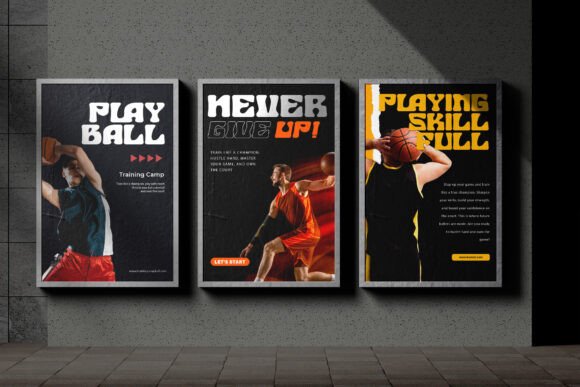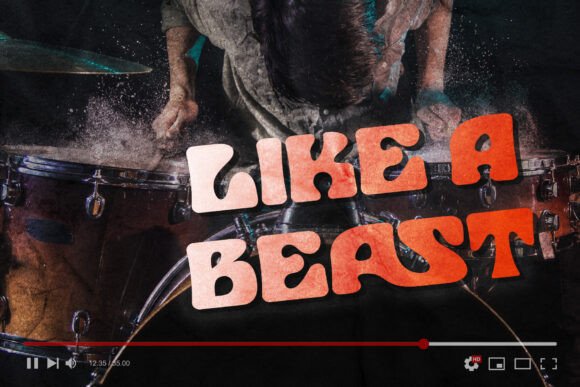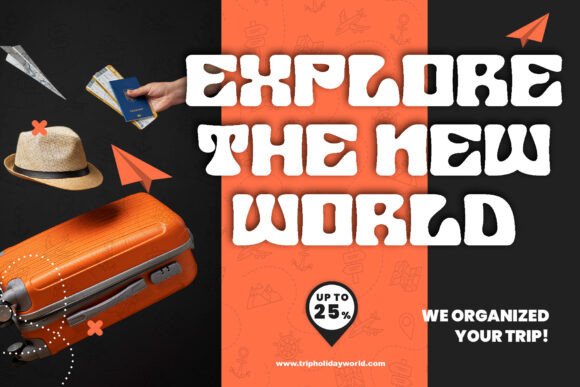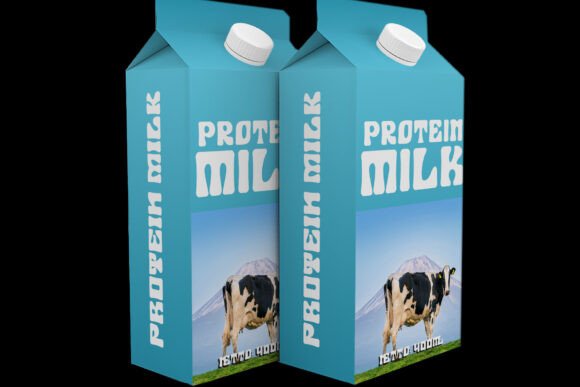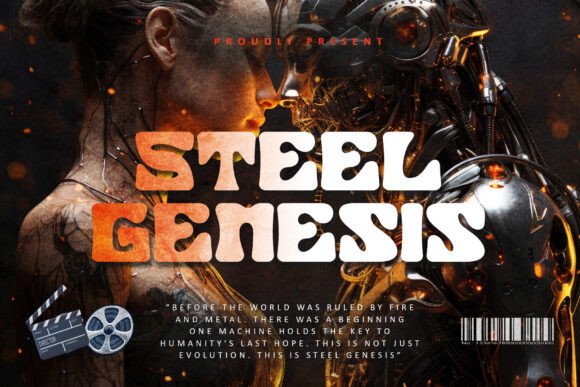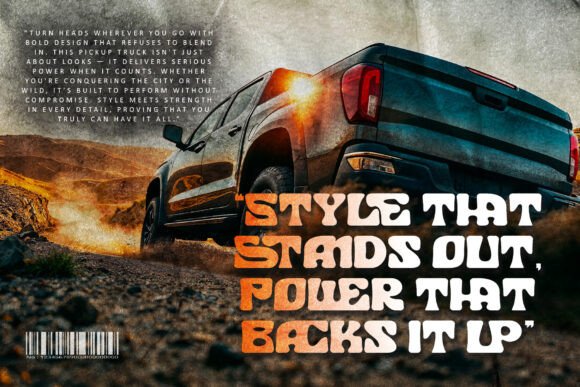
Introducing Allrion: The Bold Display Font That’s About to Revolutionize Your Designs
In the world of typography, a good font can make all the difference between a design that’s merely okay and one that’s truly unforgettable. If you’re on the hunt for a font that packs a punch, look no further than Allrion. This bold display font is not just a pretty face; it’s a game-changer. With its thick, curvy letterforms, dynamic ligatures, and retro-futuristic flair, Allrion brings a playful yet powerful energy to any project.
The Unique Features of Allrion
So, what sets Allrion apart from other fonts out there? For starters, its bold and curvy letterforms are unlike anything you’ve seen before. They’re not just thick and chunky; they’re also incredibly dynamic, with a sense of movement and energy that’s hard to ignore. But that’s not all – Allrion also comes with 60 ligatures and alternate swashes, giving you the creative freedom to experiment with different styles and looks.
Allrion is more than just a font; it’s a versatile design tool that’s perfect for a wide range of projects. Whether you’re working on sports branding, posters, streetwear, music covers, or anything else that needs to make a strong visual impact, Allrion is the perfect choice. Its bold and playful style is sure to grab attention and leave a lasting impression.
The Benefits of Using Allrion
So, why should you choose Allrion for your next project? Here are just a few benefits of using this amazing font:
- Make a statement: With its bold and curvy letterforms, Allrion is the perfect font for making a statement. Whether you’re trying to grab attention or convey a sense of confidence and energy, Allrion has got you covered.
- Stand out from the crowd: In a world where so many designs look the same, Allrion is a breath of fresh air. Its unique style and dynamic ligatures make it the perfect choice for designers who want to stand out from the crowd.
- Easy to use: Despite its bold and complex style, Allrion is incredibly easy to use. With a range of ligatures and alternate swashes to choose from, you can experiment with different looks and styles in just a few clicks.
What Kind of Projects is Allrion Perfect For?
Allrion is a versatile font that’s perfect for a wide range of projects, including:
- Sports branding: Whether you’re designing a logo for a sports team or creating a promotional campaign, Allrion’s bold and dynamic style is sure to score a touchdown.
- Posters: From movie posters to event posters, Allrion’s bold and eye-catching style is perfect for grabbing attention and conveying important information.
- Streetwear: Allrion’s playful and edgy style makes it the perfect choice for streetwear brands who want to make a statement.
- Music covers: Whether you’re designing a cover for a music album or creating promotional materials for a music festival, Allrion’s bold and dynamic style is sure to hit all the right notes.
In conclusion, Allrion is more than just a font; it’s a design tool that’s capable of transforming your projects and taking them to the next level. With its bold and curvy letterforms, dynamic ligatures, and retro-futuristic flair, Allrion brings a playful yet powerful energy to any project. Whether you’re a designer, craftsperson, or simply someone who loves typography, Allrion is definitely worth checking out. So why wait? Let your typography roar with confidence and creative freedom using the unforgettable style of Allrion.